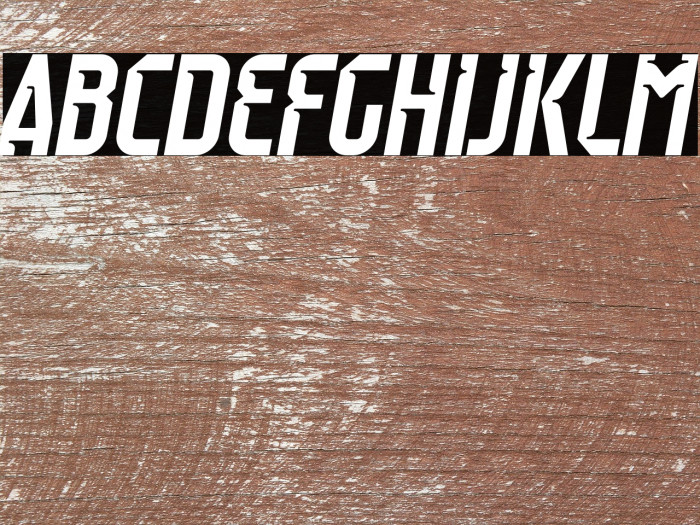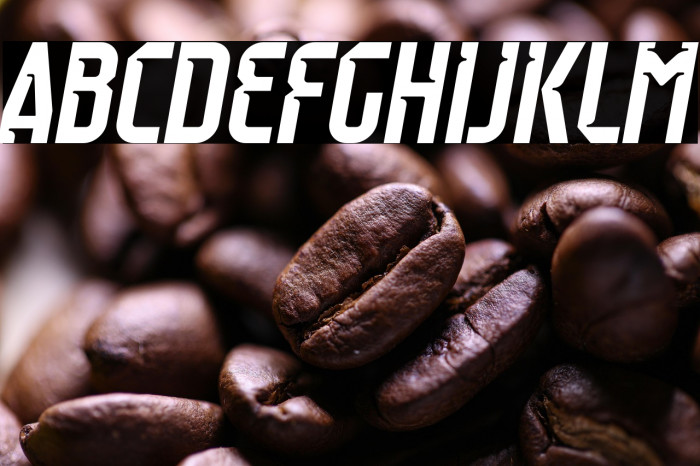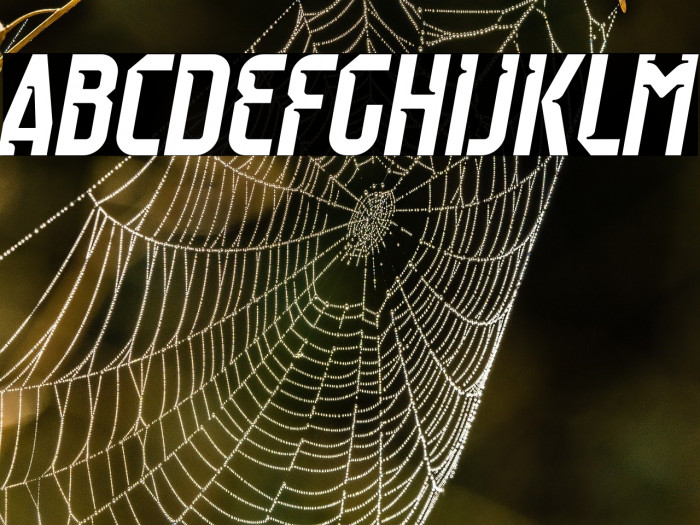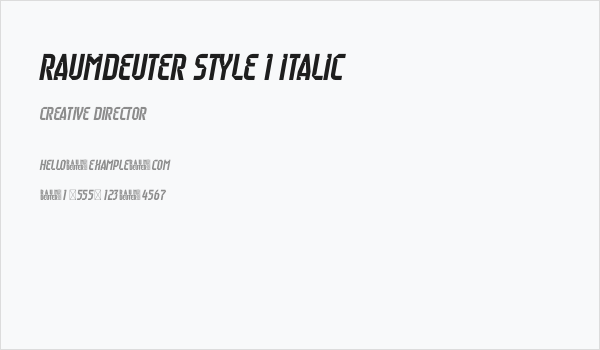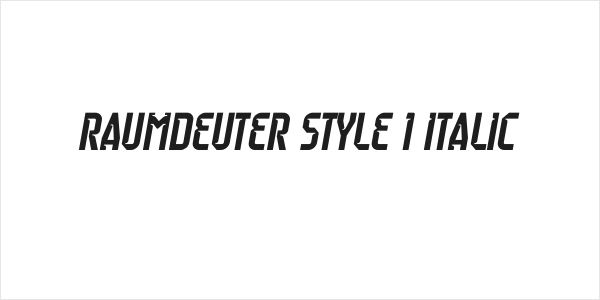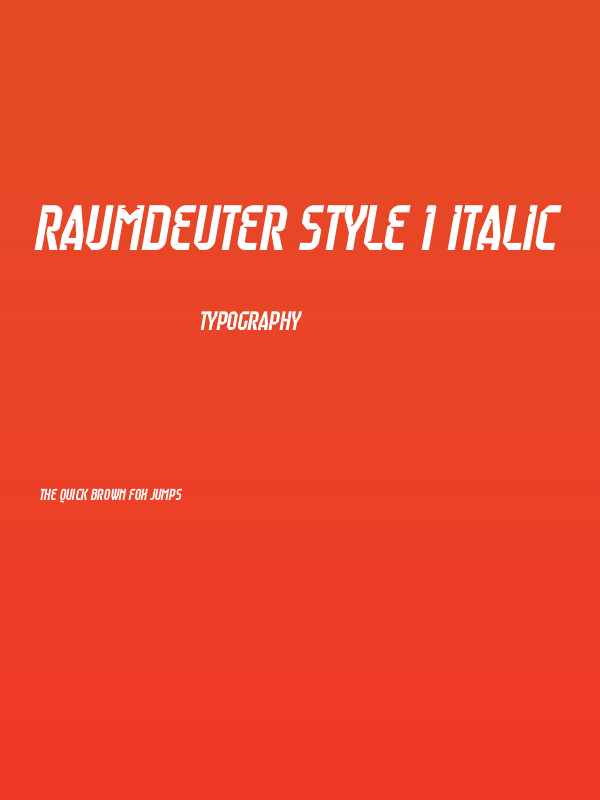
Raumdeuter Style 1 Italic Font
Raumdeuter Style 1 Italic Description
This font features a bold and dynamic italic style with sharp, angular edges that convey a sense of movement and energy. The characters are slightly condensed, enhancing the compact and powerful appearance. The uppercase and lowercase letters maintain a consistent slant, contributing to a cohesive and modern aesthetic. The numerals are designed with the same angular style, ensuring uniformity across all characters. This font's unique design makes it stand out, ideal for projects that require a strong visual impact.
Proposed ProjectsIdeal for sports branding, dynamic posters, and modern advertising campaigns.